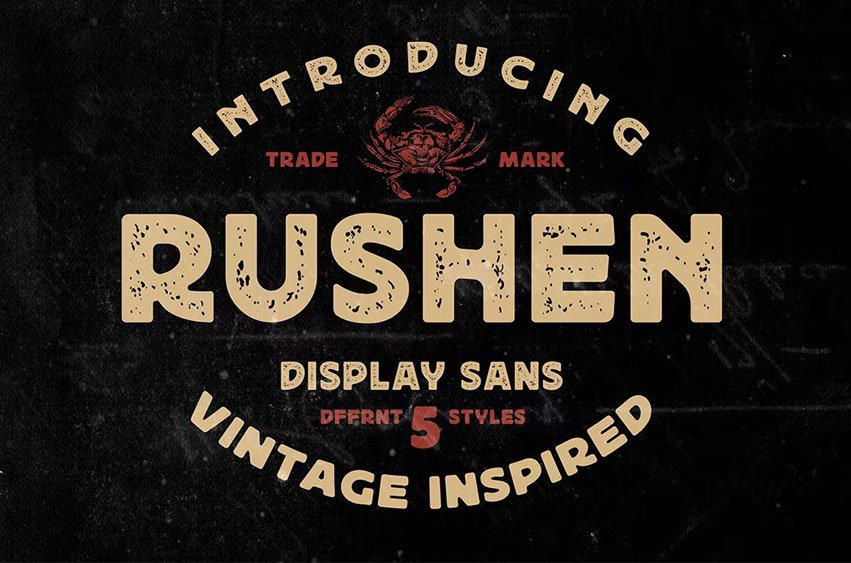
Rushen Vintage Font is a vintage display sans serif with 5 styles. Designed with a bold weight that is awesome to be used for many purposes such as headlines, branding, logo, logotype, cards, labels, posters, packaging, and many more. These fonts are all-caps fonts complete with multilingual support. Be Bold with Rushen!
- Regular: The basic one, with sharp geometrical shapes, formal and elegant look. Good to apply in Books, newspapers, and letterhead.
- Curvy: Inky inspired by old-school advertising, can be combined with your favorite fonts. Perfect for labels, posters, and short editorials.
- Stencil: The most explored with some adjustments that look good for a manly theme, urban style, military themes, brave, and youth.
- Shadow: The complement from all, but still can be stand-alone for western design, old school, and food themes.
- Distressed: The vintage-inspired with the neat ink effect and minimal anchor points to keep the font still ergonomic.